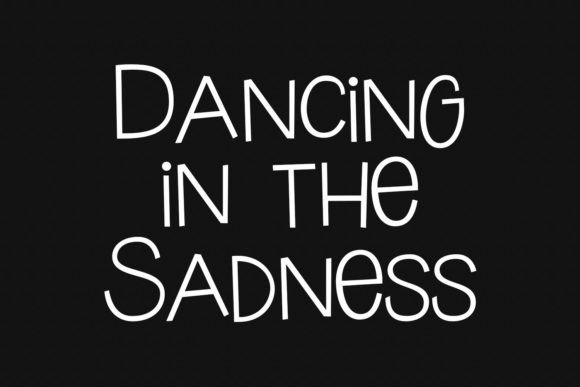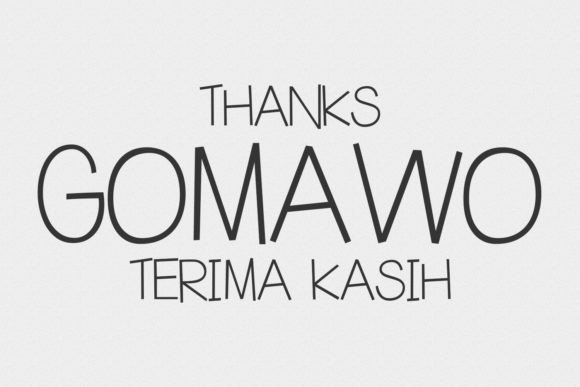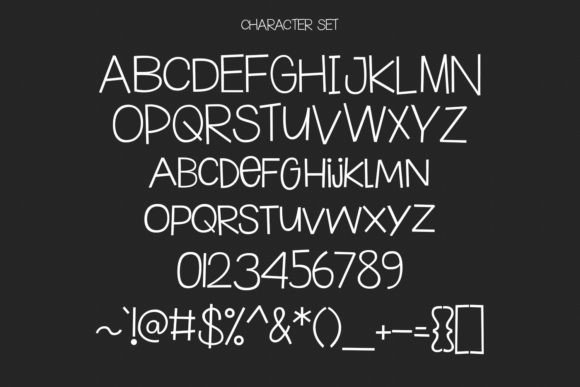
Introduction to Mister Smiley Font
Have you ever stared at a blank page, trying to conjure up the perfect design for your creative project, only to have your mind go blank? The pressure to create something unique and captivating can be overwhelming, but what if I told you there’s a font that can help you break through that creative block? Enter the Mister Smiley Font, a quirky and bouncy handwritten sans serif font that’s guaranteed to put a smile on your face.
This charming font is more than just a pretty face – it’s a valuable resource for designers looking to add a touch of personality to their work. With its high-quality design and transparent background, the Mister Smiley Font is perfect for adding a creative twist to your next project. And the best part? It’s available for free download, making it an invaluable addition to any designer’s toolkit.
Key Features of Mister Smiley Font
- High-quality design for creative projects, ideal for use in various contexts.
- Includes a transparent background, allowing for seamless integration with different backgrounds.
- Each character is meticulously crafted with high resolution (1024 x 1024 pixels), ensuring crisp and clear display.
- The font includes a wide range of emoticon characters, perfect for adding a touch of personality to your creative project.
- Perfect for use in digital design, such as social media graphics, web design, and mobile app design.
Honest Review: Mister Smiley Font
I recently stumbled upon the Mister Smiley Font and was excited to give it a try in my latest creative project. As a designer, I’m always on the lookout for high-quality design resources that can elevate my work. Let’s dive into my review and see if this font meets my expectations.
- High-quality glyphs and seamless transparency on transparent backgrounds, which is perfect for creating eye-catching designs.
- The font is incredibly versatile, making it suitable for various design projects, from posters to social media graphics.
- The font family is relatively small, which may limit its usability in complex design projects.
- The font’s uniqueness might not be for everyone, as it’s quite bold and attention-grabbing.
Overall, I’m impressed with the Mister Smiley Font’s high-quality design and versatility. While it may have some limitations, I think it’s a valuable addition to any designer’s toolkit. If you’re looking for a free and high-quality design resource for your next creative project, give the Mister Smiley Font a try!
Mister Smiley Font is a unique and versatile design resource perfect for creative projects. Its transparent background and high-quality design make it a valuable addition to any design toolkit.
To get the most out of Mister Smiley Font, experiment with different font sizes, colors, and styles. You can also combine the font with other design elements to create unique and eye-catching designs.
Mister Smiley Font is perfect for a variety of design projects, including social media graphics, blog posts, and marketing materials. Its versatility and high-quality design make it a valuable resource for designers of all levels.